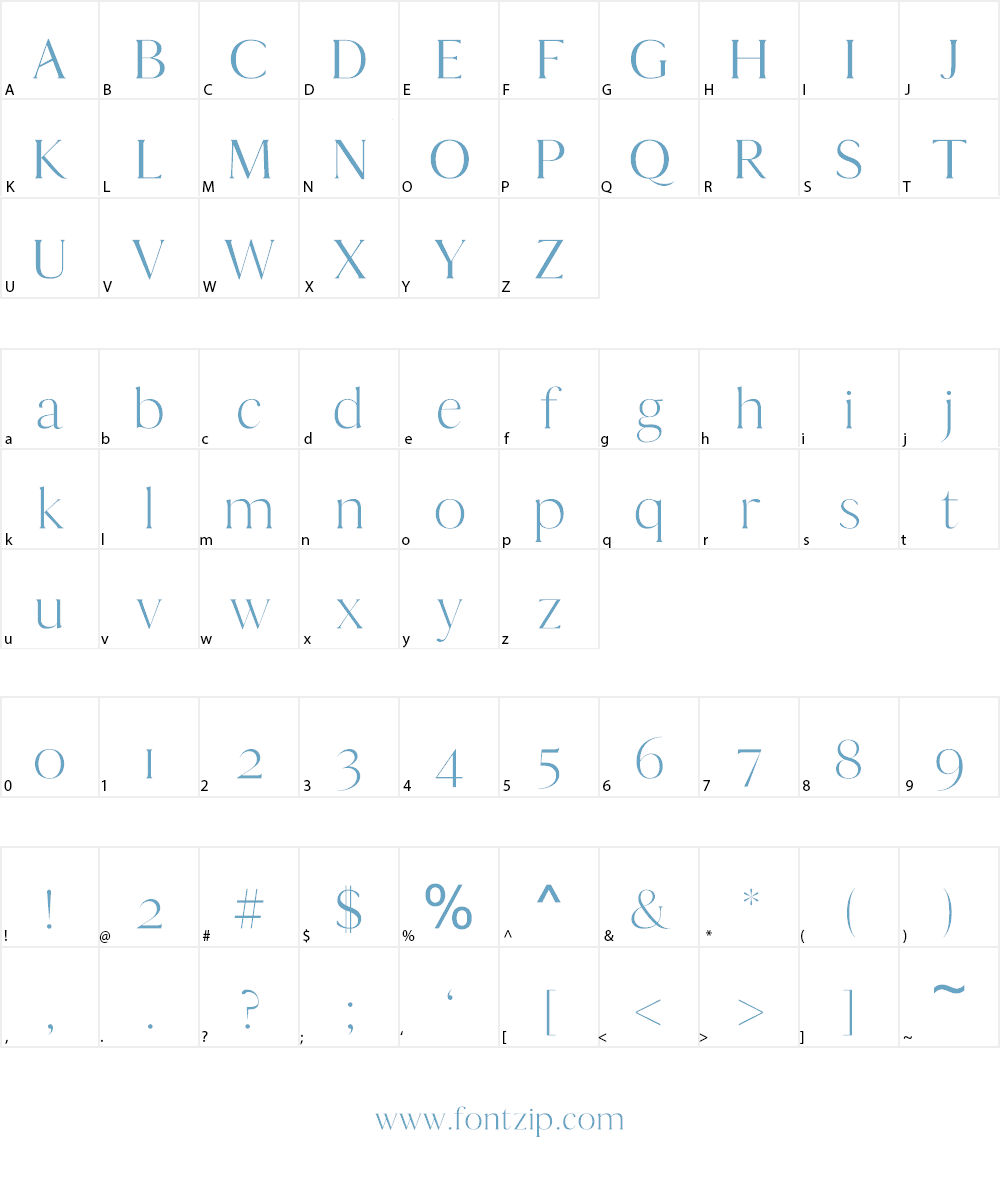
Thomas Mag is the perfect font to create sleek and elegant logo designs and headlines and. It pairs well with both script and serif fonts and features multiple weights.